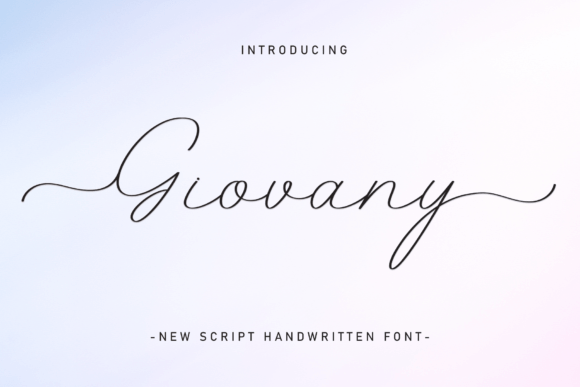
Step into the world of elegance and artistry with Giovany, a script font that will transform your creative visions into captivating masterpieces. Its meticulously crafted curves and delicate strokes evoke a sense of timeless beauty, making it the perfect choice for those seeking a font that exudes sophistication and charm.
Immerse yourself in the versatility of Giovany, a font that adapts seamlessly to a myriad of creative endeavors, from heartfelt handwritten letters and enchanting invitations to captivating social media graphics and enchanting DIY projects. Unlock your imagination and let Giovany guide you through a realm of infinite creative possibilities.
With Giovany, the world of Cricut projects takes on a breathtaking new dimension. Its compatibility with Cricut machines opens up a universe of personalized creations, allowing you to effortlessly transform ordinary objects into extraordinary works of art. Embellish your home décor with intricate cutouts, create personalized gifts that speak volumes, or add a touch of elegance to everyday items with Giovany's graceful presence.
Whether you're a seasoned designer or just starting your creative journey, Giovany will effortlessly elevate your projects, adding a touch of magic to every word you write. Its user-friendly nature makes it accessible to all, inviting you to explore the depths of your creativity without boundaries.
Experience the allure of Giovany, a font that captivates hearts and ignites imaginations. Let its enchanting curves and delicate strokes weave their magic, transforming your creative endeavors into breathtaking works of art. Embark on a journey of self-expression and artistic fulfillment with Giovany as your trusted companion.